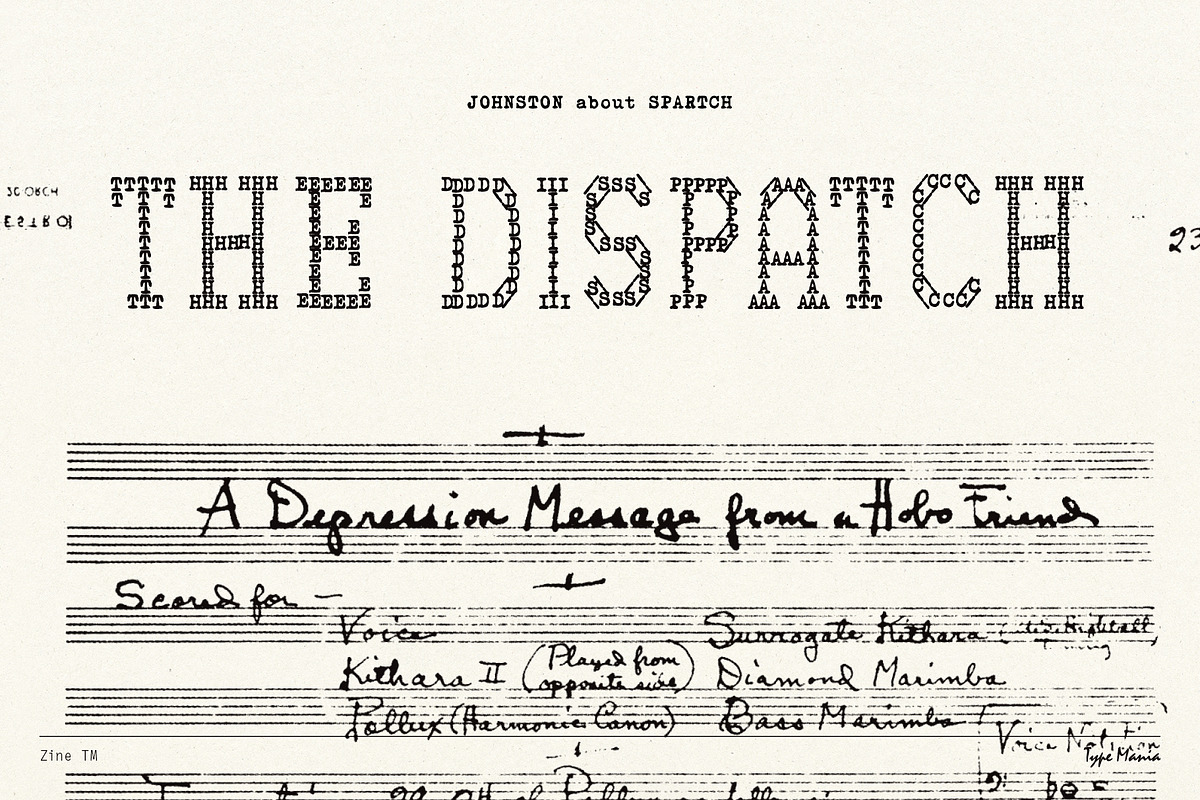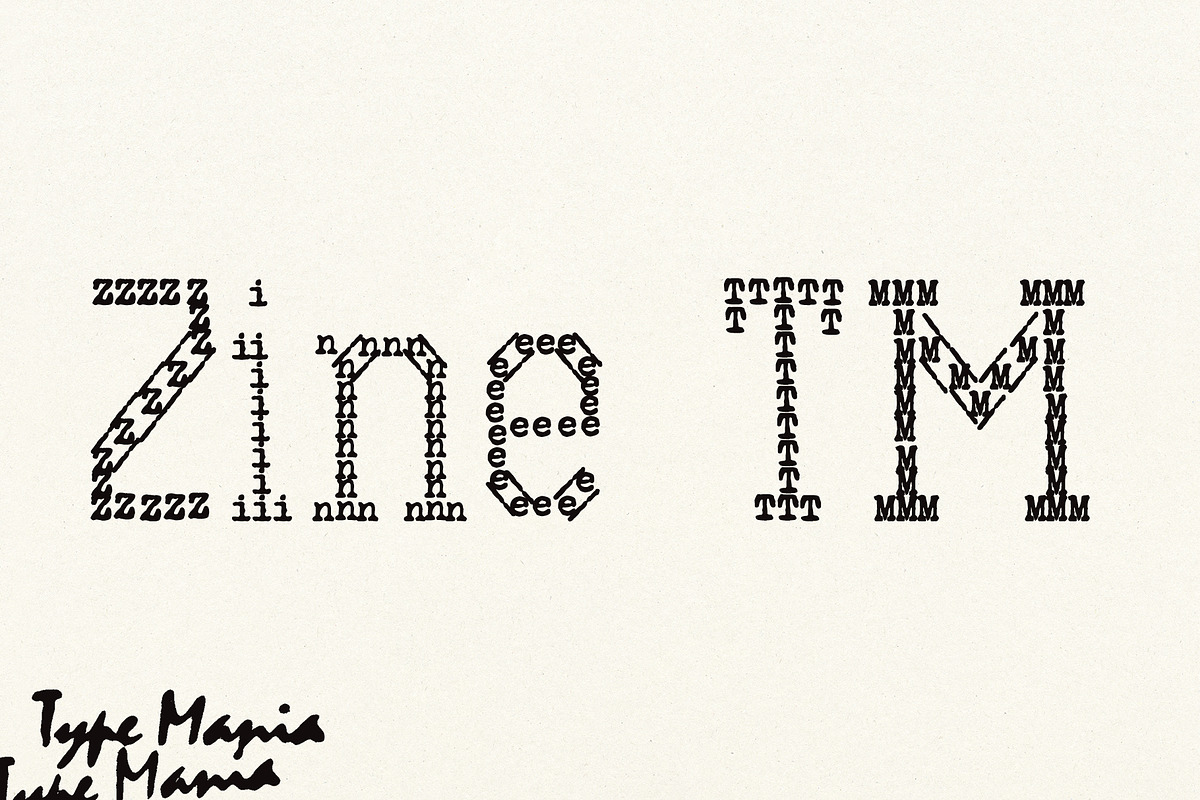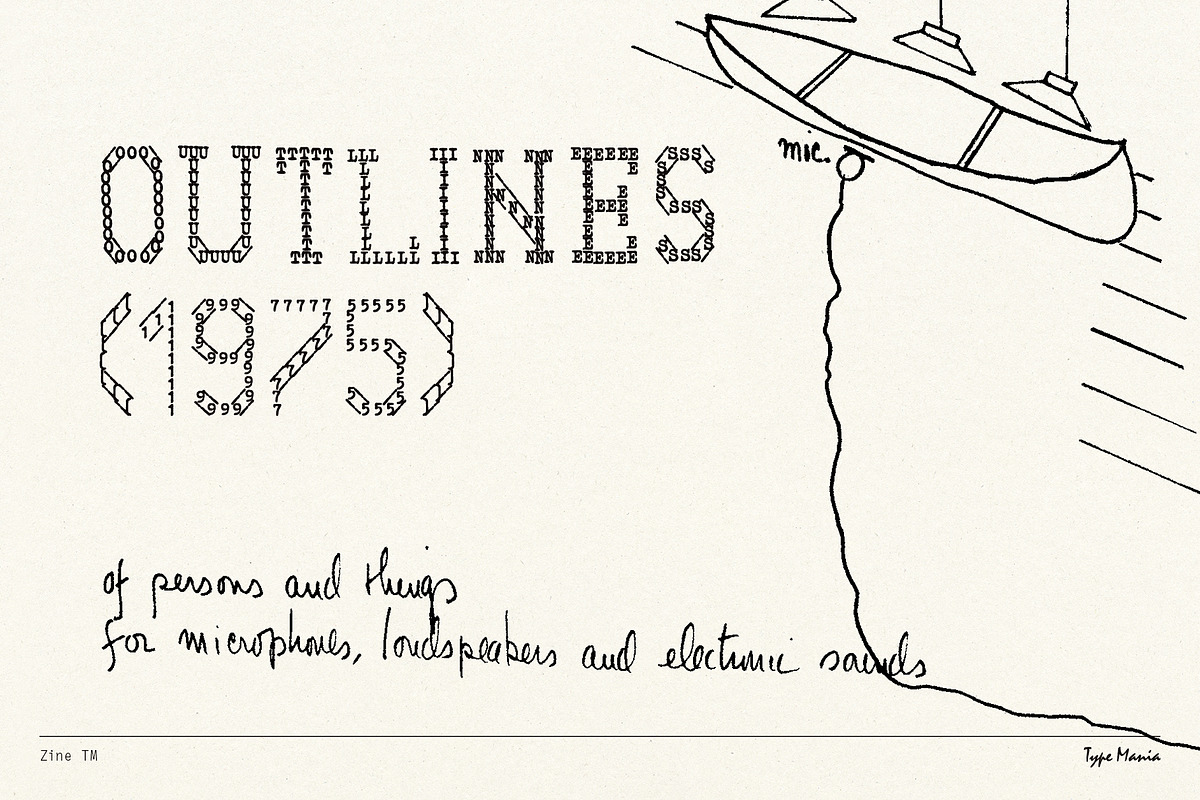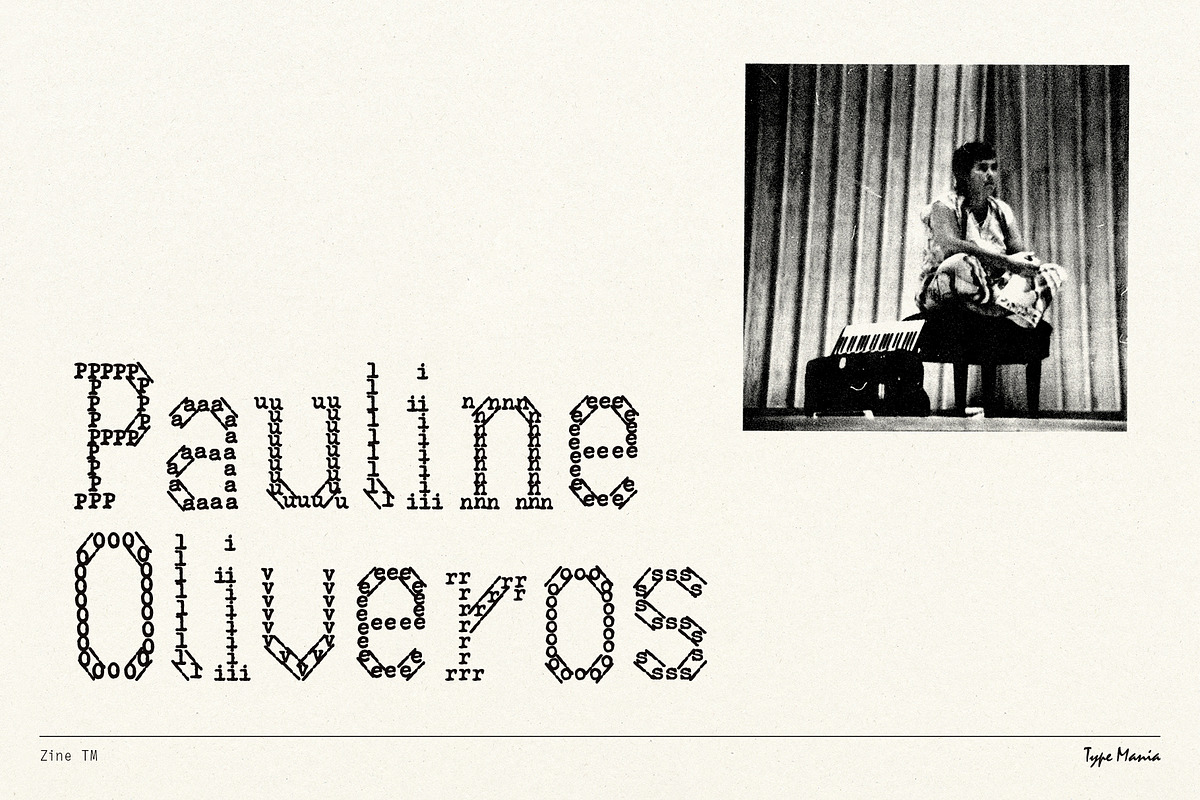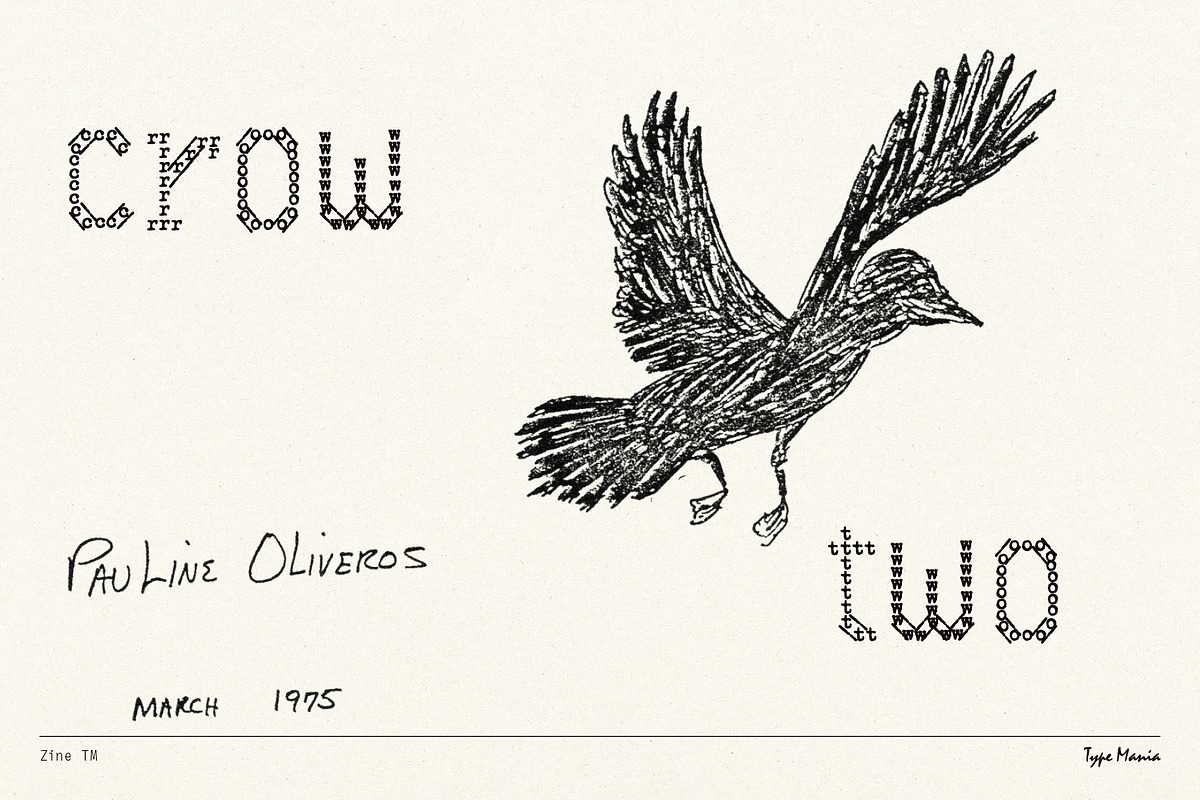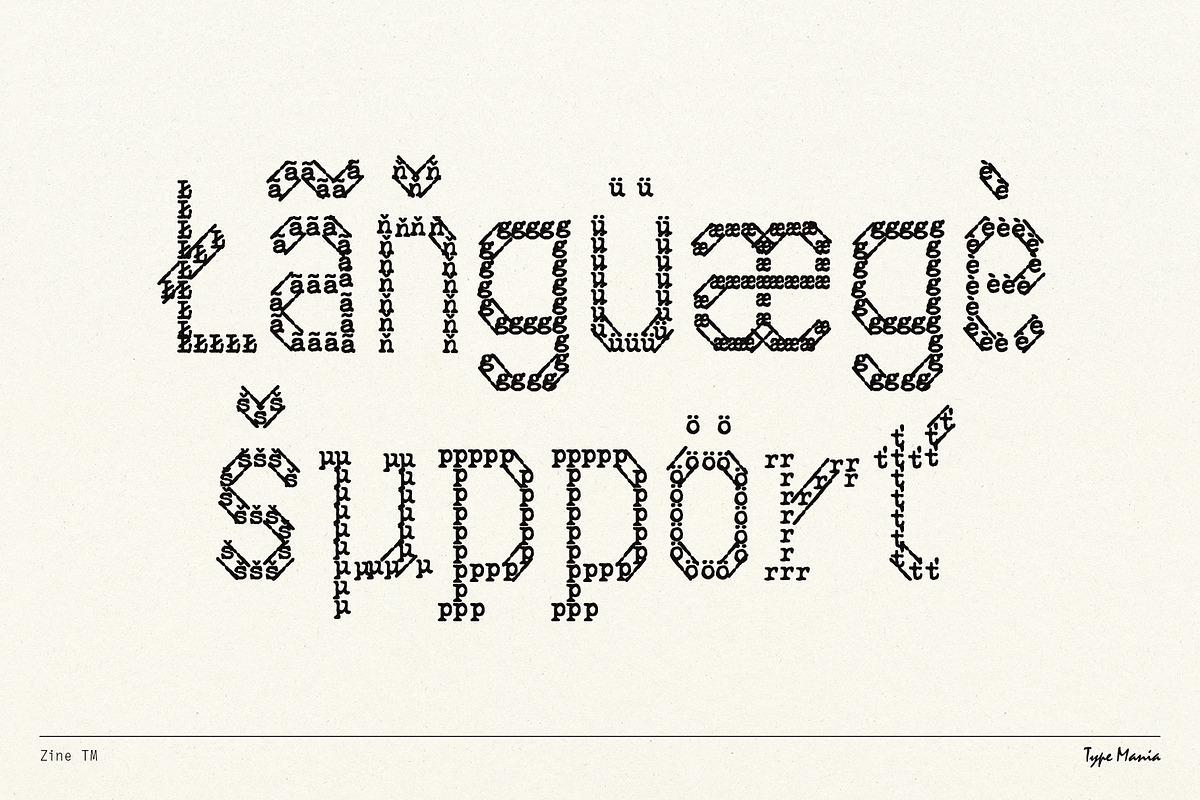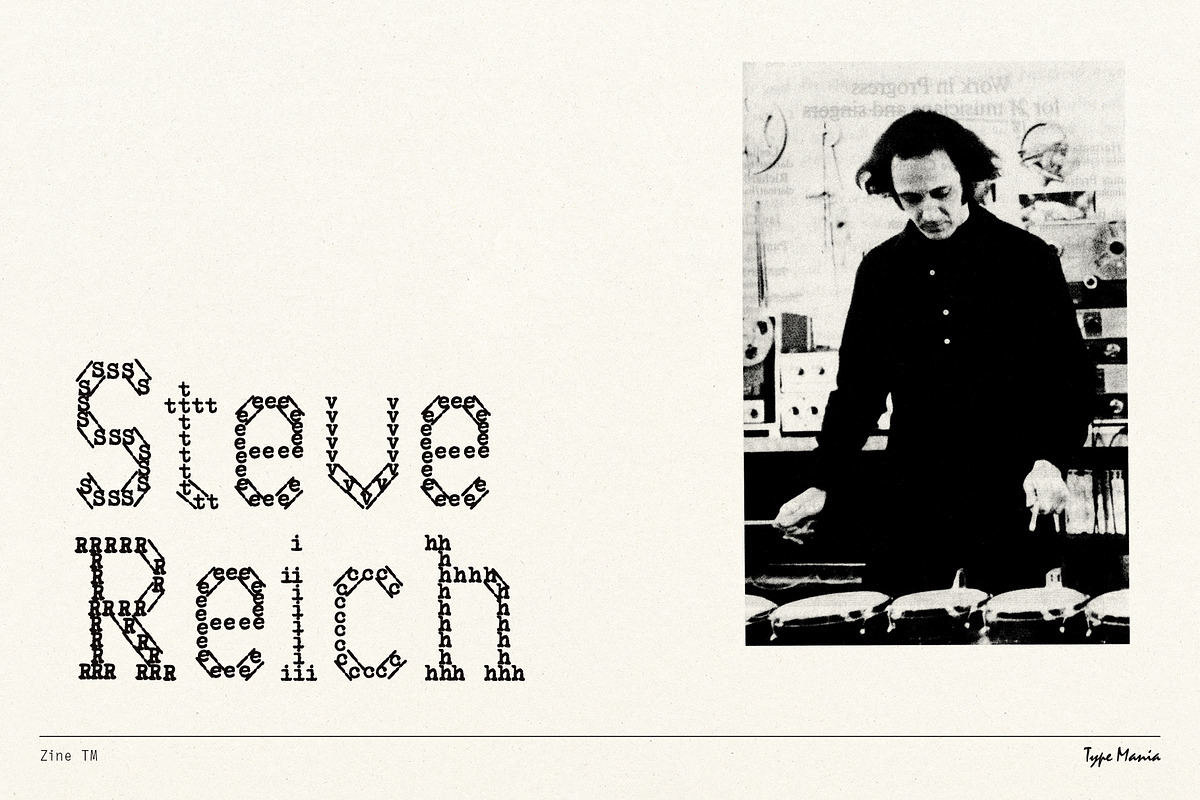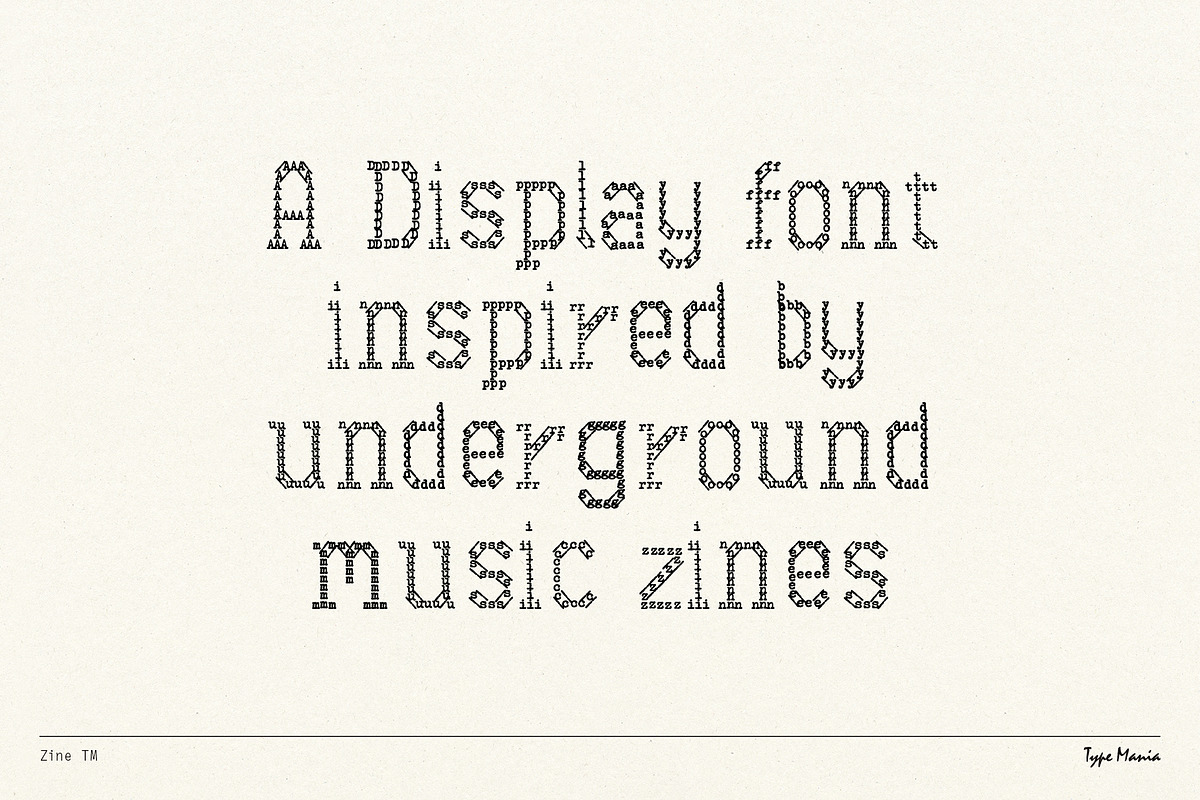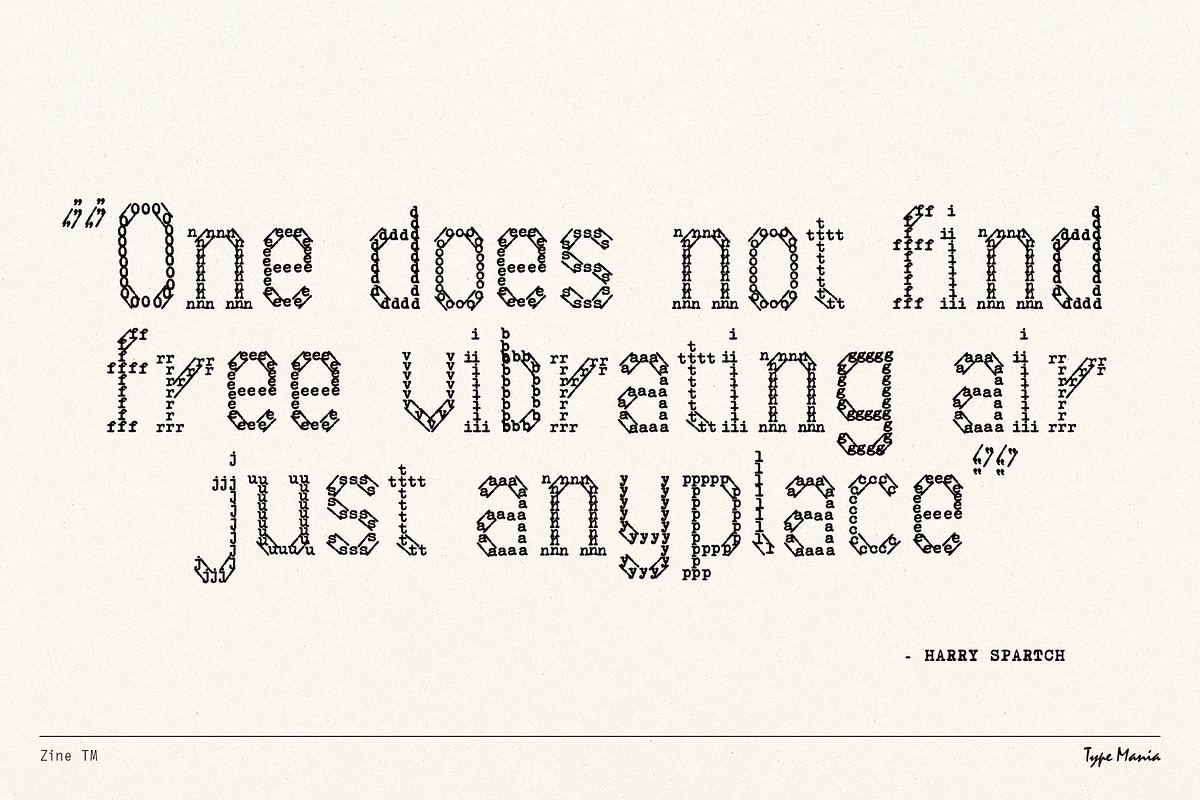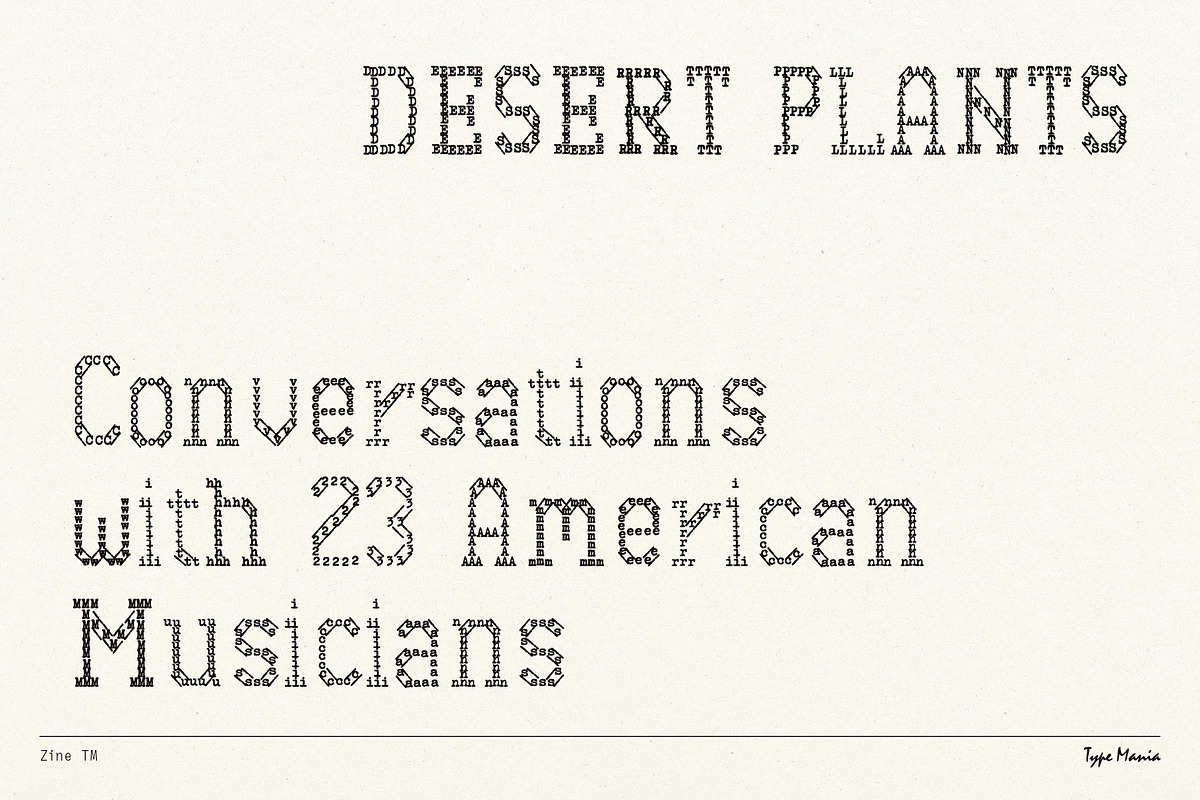
Zine TM – Creative Typewriter Font
Step back in time with our typewriter font with a 🌀twist🌀. Embrace the past, celebrate the present, and make your mark with Zine TM 📝